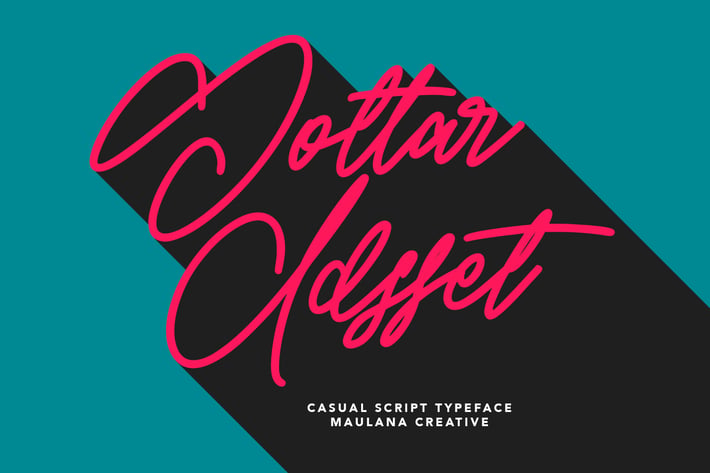
Gottar Adsset Signature Brush Font
Give your designs an authentic brush handcrafted feel. "Gottar Adsset" is perfectly suited to signature, stationery, logo, typography quotes, magazine or book cover, website header, flyer, clothing, branding, packaging design and more.